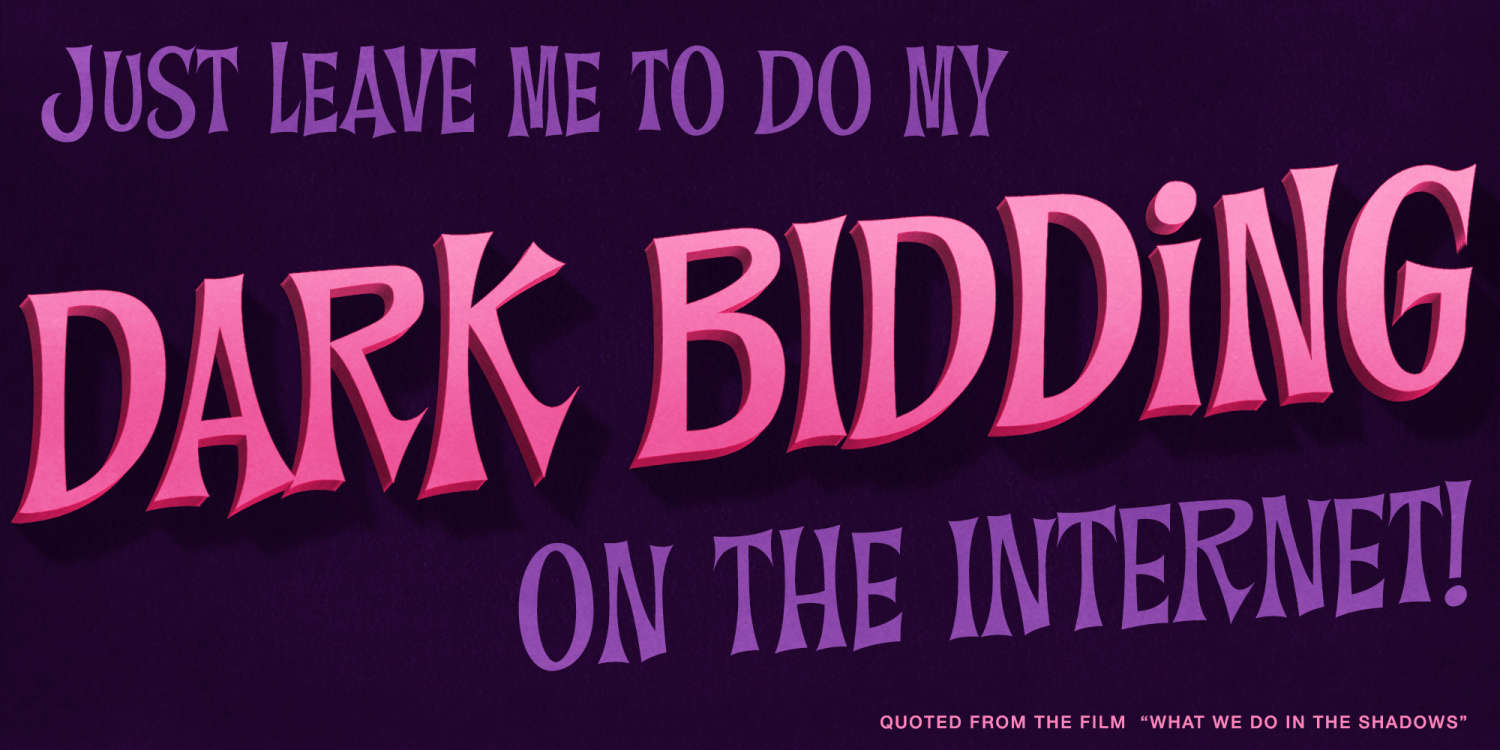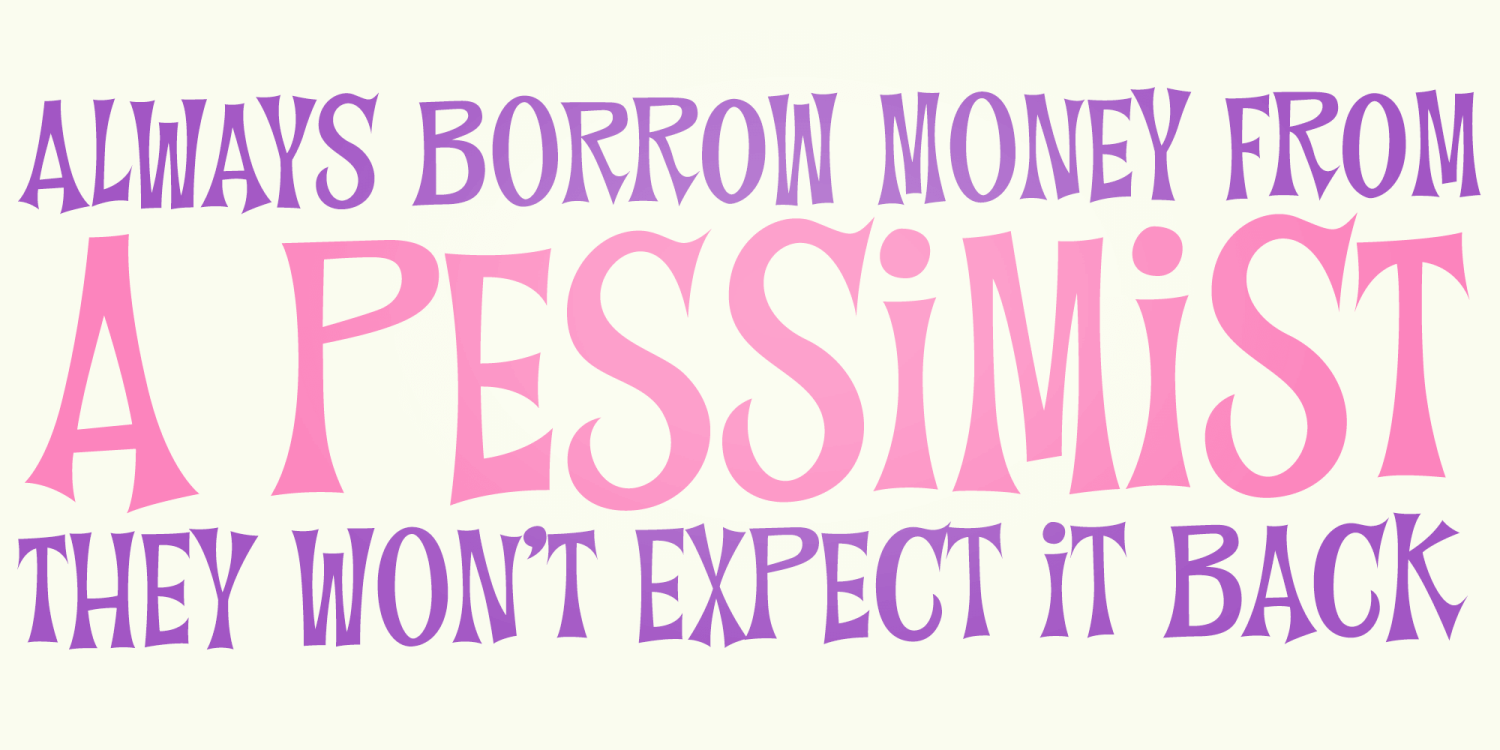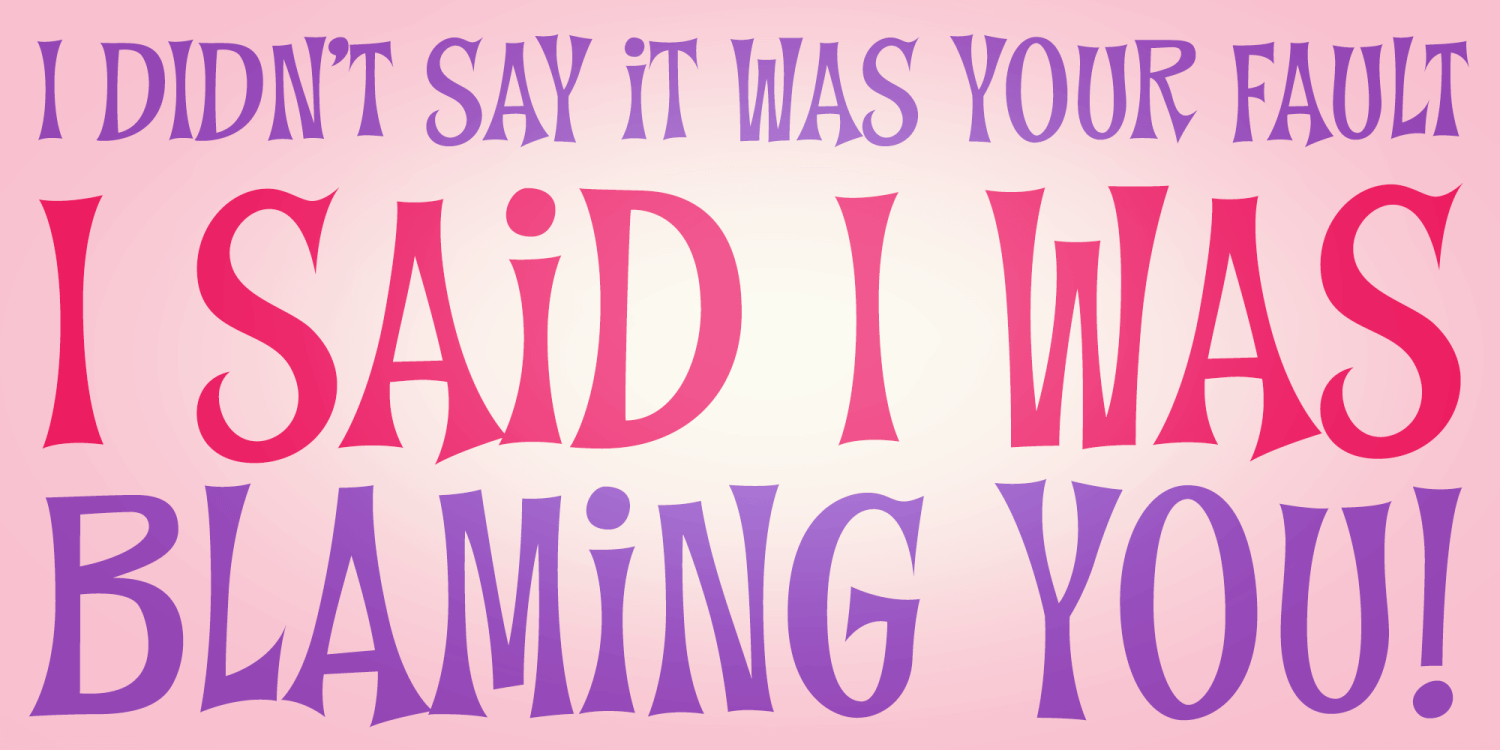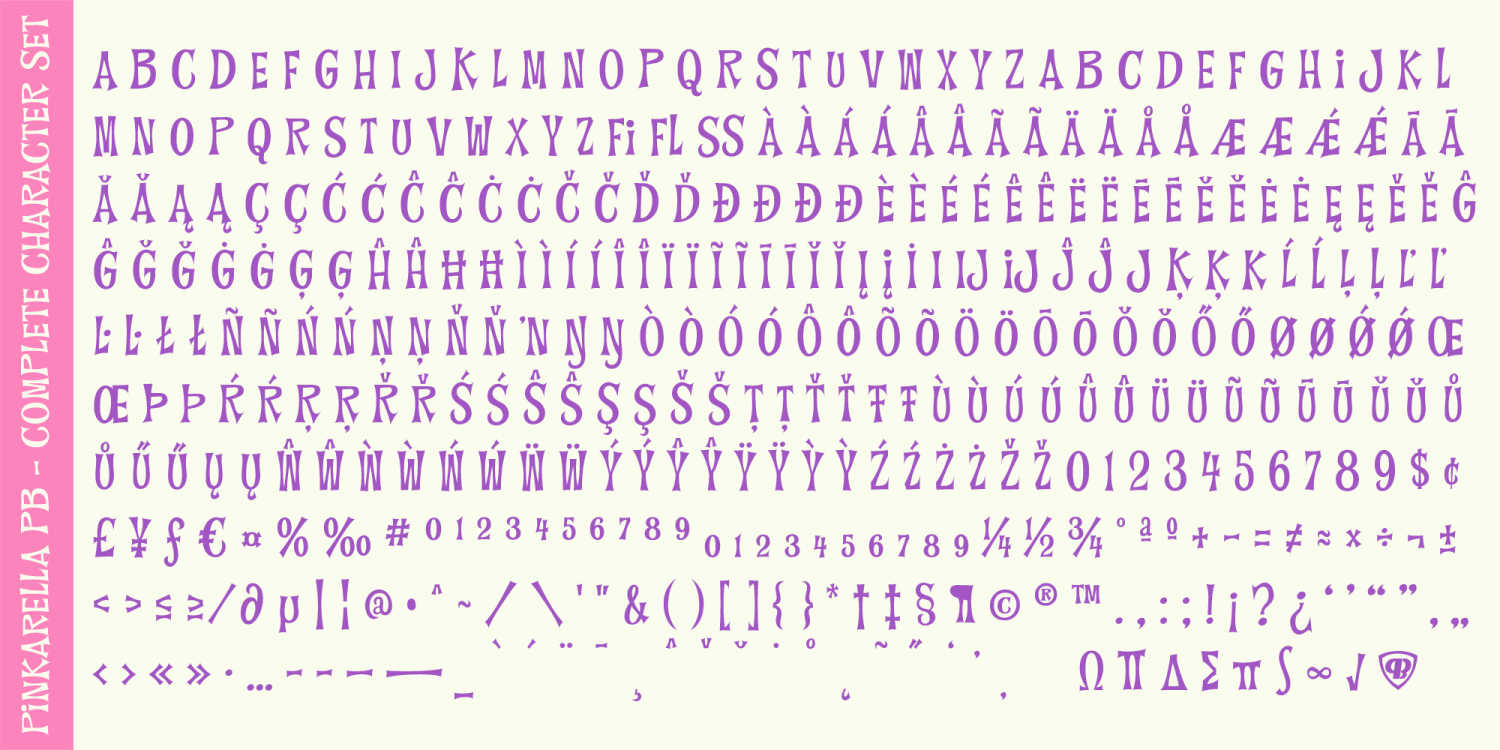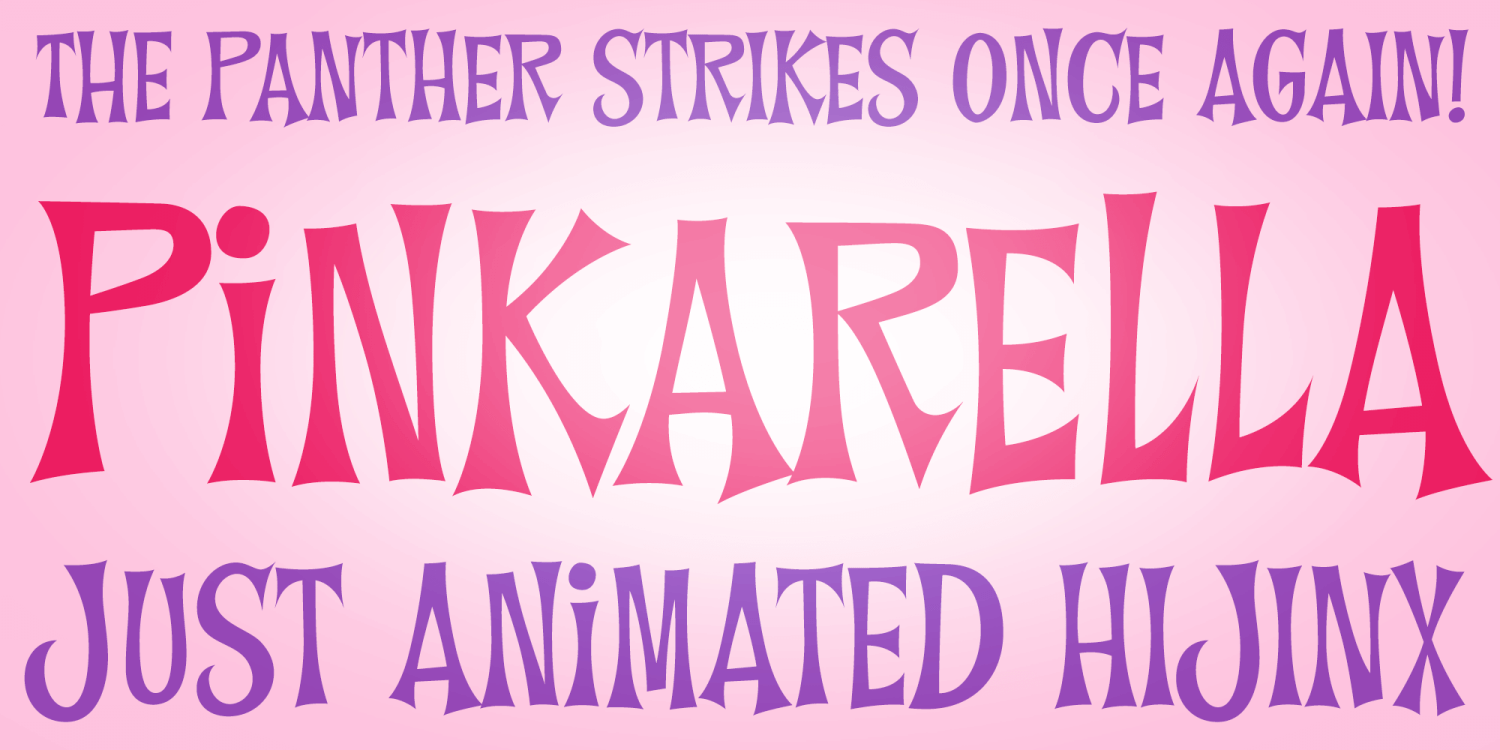
Pinkarella PB is a recreation of the title lettering from the 56th Pink Panther cartoon episode "Pink-A-Rella". The lettering had flare serif lettering that was sort of all over the place with animated joy in its style. This recreation plays…